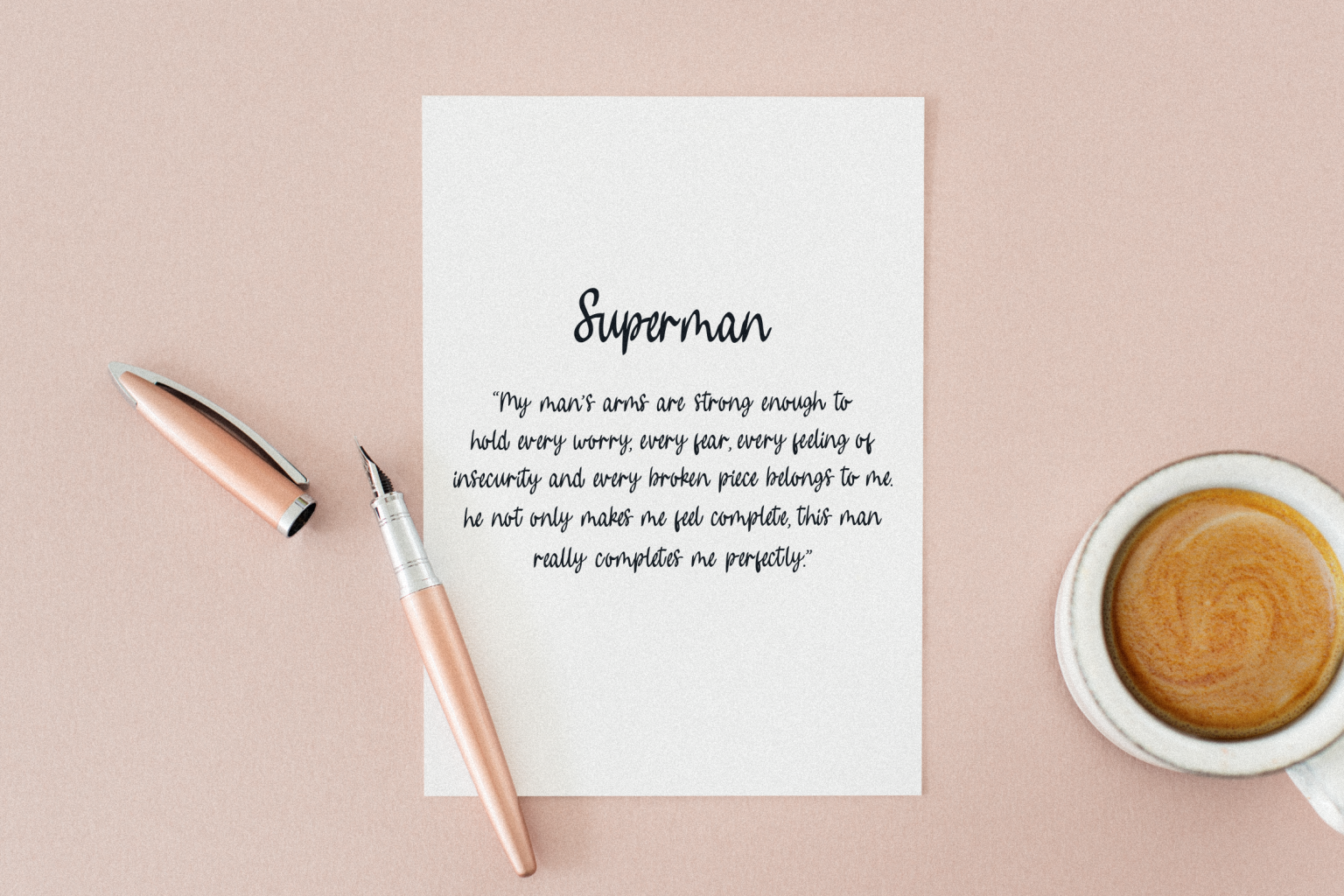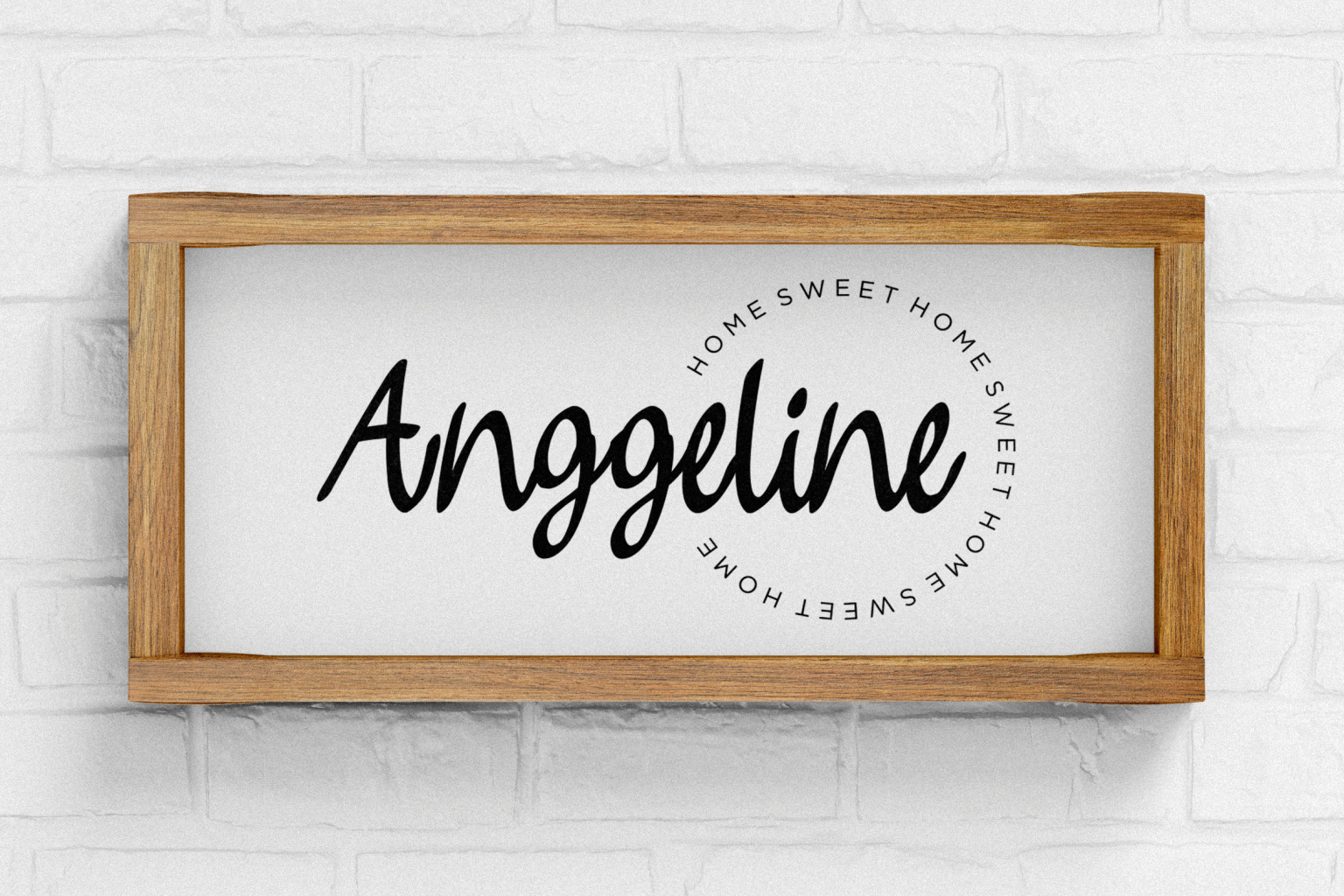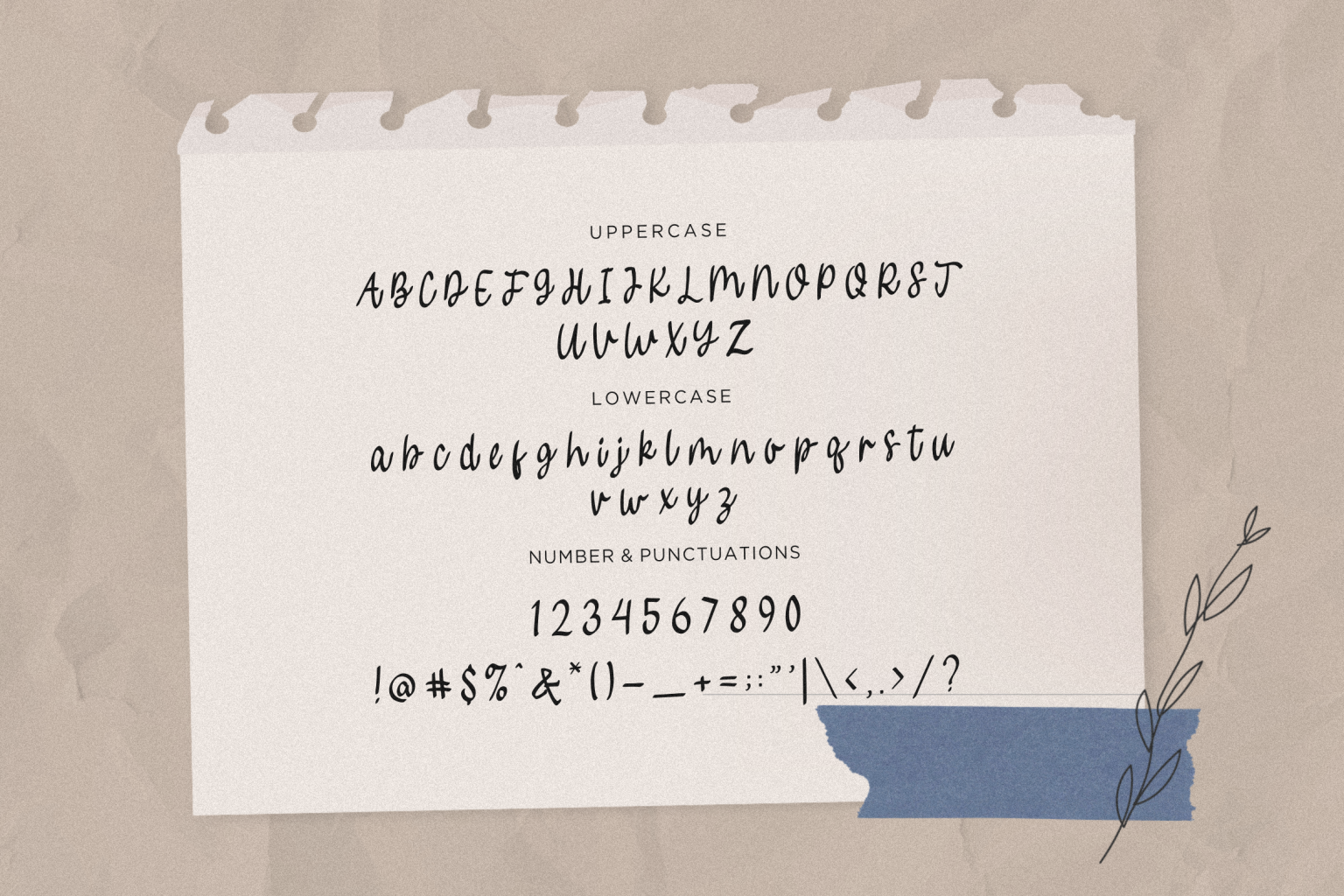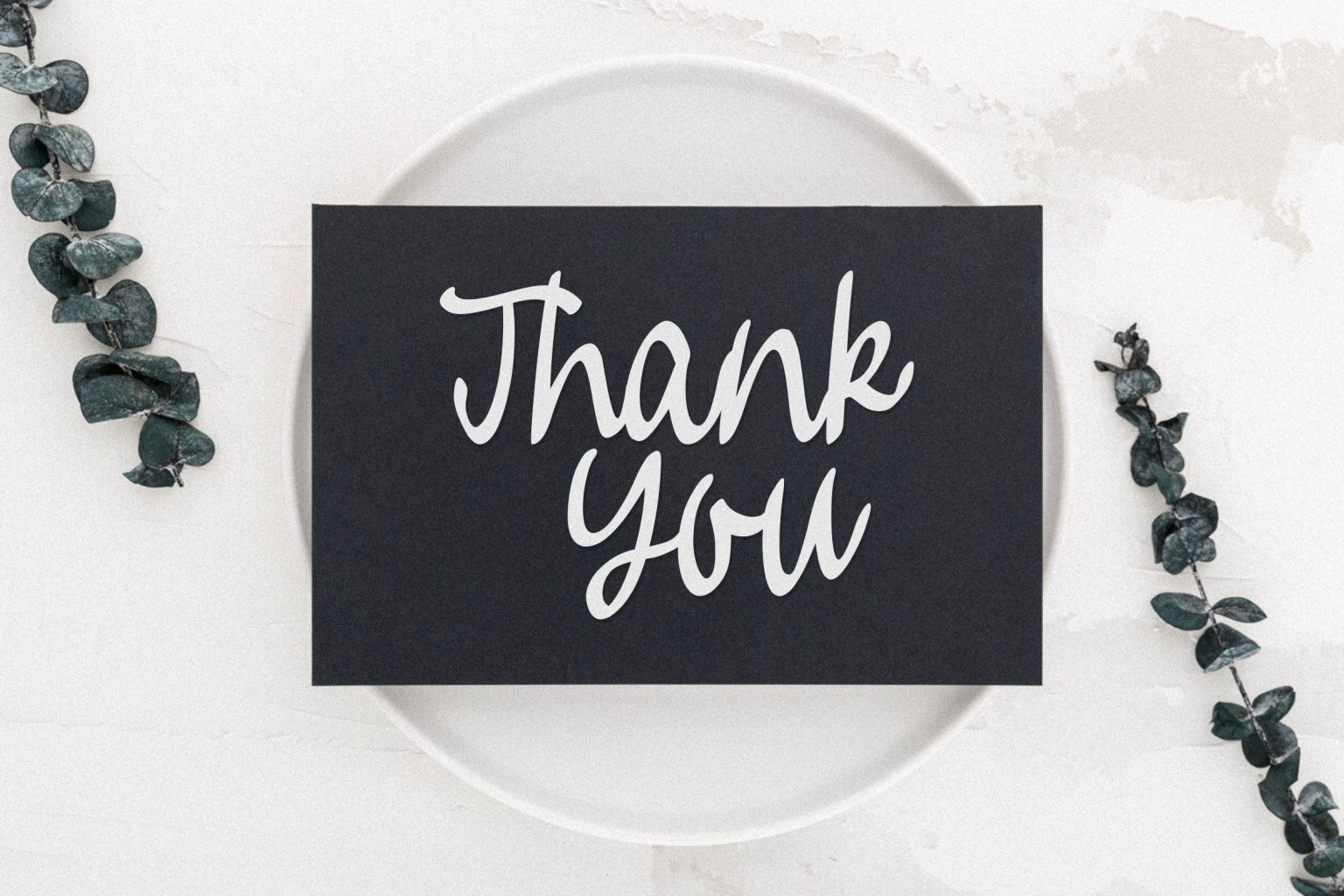
Chocolathe Melody Script Font is a flowing handwritten font, described by an elegant touch, perfect for your favorite projects. Fall in love with its incredibly distinct and timeless style and use it to create spectacular designs!